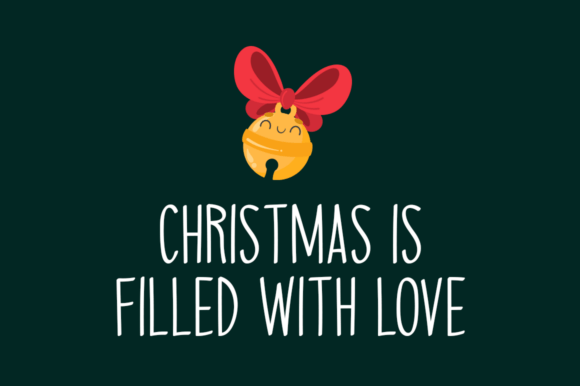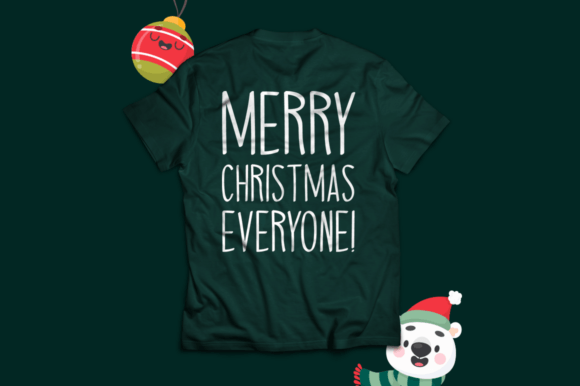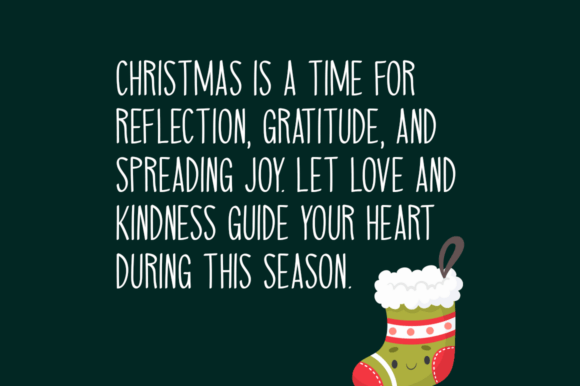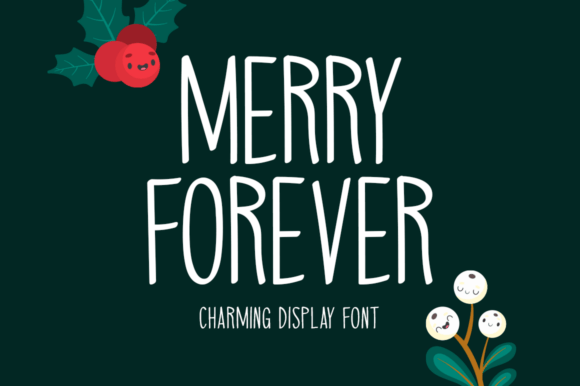
Introduction to Merry Forever Font
Merry Forever is an enchanting display font that has just arrived on the scene, offering a delightful blend of charm and elegance.
This versatile typeface is perfect for a wide range of creative projects, from personalized stationery and unique logos to trendy t-shirts and impactful print designs Whether you’re designing website headers, stylish photo frames, engaging flyers, or striking music covers and posters, Merry Forever is sure to elevate your work to new heights.
Key Features of Merry Forever Font
Why Choose Merry Forever Font?
Merry Forever Font offers exceptional quality and versatility, making it a valuable addition to your design toolkit. Whether you’re creating for personal projects or commercial use, Merry Forever Font delivers professional results.